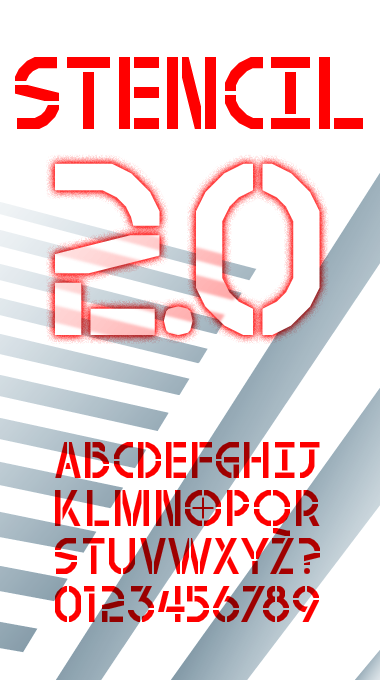
• Another stencil font...with obvious influences from Glaser Stencil (because I love it so!). But to be fair, Glaser Stencil was not referenced even once in the making of this fontstruction.
Allow me to wax technical about FontStruct 2.0 for a bit. A lot of my fontstructions have been even thickness all around. However, the evenness have been approximated thus far—not so anymore. First there were the 45° bricks; then came the 26.57°/63.43° bricks. With the 2.0 Make Composite feature, 14.04°/75.96° angles became possible. These two additional angles provide a finer tune of thickness of stems. The preview does not do justice to the font, but I tested the thicknesses of stems in Illustrator—horizontals/verticals/diagonals. Each stem now is as close in thickness to other as possible. This really is an even stroke font[struction]. Other 2.0 features are also used (but may not be obvious at a glance). See that 'o'? That's just one quarter curve created and then rotated three additional times. Very handy. The horizontal and vertical flips were used extensively throughout the creation process. Quarter-ing of angled bricks became necessary when it became evident that the only even thickness of a stroke is possible at x.5 thickness when combined with a curve. This meant that each vertical/horizontal stem is 5.5 bricks thick, which in turn made it necessary to use angled bricks at a quarter scale, which, of course, was made possible with the Make Composite feature. The only place I couldn't get the brick I wanted was in 4 (zoom in to see the slight misshape). It was a joy to work on this fontstruction to get what I really wanted almost every time. Great update, Rob. Cheers!
As long as I am on the soap box: What's up with diaeresis? I understand the reason for their existence, but are they the best possible way to handle various additional sounds? Also, are they even necessary? For example, café in French means a particular thing. But does cafe (without the e with the grave on it) mean something else? If not, wouldn't the French automatically know how to properly pronounce café (with or without acute on the e) the correct way whichever 'e' is used? It helps in the pronunciation for the uninitiated but are languages really designed for the novice? There are 26 letters in the English alphabet but they cover the gamut of up to 44 different sounds (according to some). Improbable as it may seem, it does not stop people to choose the correct pronunciation of letters. Hop has one sound for the 'o' and adding an 'e' at the end does not add the 'e' sound at the end of 'hop' but changes the sound of the middle 'o'. Convention. Sure. What I am trying to get at is that written script functions much better with distinct shapes without the flow-interrupting addition of the diaeresis. So unless there are two words spelled the same with the only difference being the kind of diacritic on the letters, the diacritic are redundant, no? If there is a real need for certain letter+diacritic combo, wouldn't a new shape be better? There are no shortage of additional shapes in the scripts of other languages. Can't do without an 'é'? Replace it with, say, 'ө' from the Greek script...or whatever. It bears repetition: What's up with diaeresis?
You raise good points about diacritics. I'm a member of the Saundspel Yahoo! Group, and some of us are constantly debating the best way to write English: diacritics, letter groups or new letters? I favor adding new letters to our alphabet, but not all email systems fully support Unicode.
The German language has not only vowels with umlauts, but also the sharp s (ß). Icelandic has edh and thorn, both of which used to be English letters. Should FontStruct add IPA Extensions and Shavian to its supported ranges?
From your anti-diacritic rant I take it that you are a native speaker of English (or of another language, whose writing system doesn't contain diacritics). As a defence for the diacritic I think that there are in most cases minimal pairs, i.e. words that are spelt the same except for one letter (or sound).
In Danish (my native language) we have three additional letters - æ, ø and å - that we concider extra letters, and not simply letters with diacritics. And I agree with you that different shapes of letters are more interesting than diacritics (in Swedish they use ä and ö corresponding to the same sounds as our æ and ø).
We do have the occational diacritic in danish, but they are optional or for showing stressed words. For example the danish word for 'idea' may be spelt either 'idé' or 'ide', and if we want to stress that there is only 'one cow' instead of simply 'a cow' we can do so by writing 'én ko' instead of 'en ko' (where 'en' is the common indefinite article and 'ko' is 'cow').
What I am trying to say is that there is probably a reason for all the different diacritics, and the reason they are not entirely different shapes of letters is probably that it is easier to put diacritics on them. I also think the diacritics are what makes the latin (and for that matter cyrillic) such a versatile script for writing so many languages, no matter how many different sounds they have.
By the way: the font is great. 10/10
A great new stencil face. I very much like the glyphs with steep diagonals (e.g. A,M,N,V,W). For the curvy parts I'm still struggling to accept the limitations of FS, though they're vanishing fast. What I also like, fs Stencil 2.0 has it's own look and style, unlike the stencil fonts I've seen before. 10/10
On the use of diacritical marks. Part of the phenomenal success of the Latin alphabet stems from its simplicity. I can be adapted to almost any language to cover a wide range of phonemes, thanks to the help of diacritical marks, and other things. It takes one year in elementary school to learn how to read and write in Europe, compared to the lifetime achievement in some Asian cultures. To introduce new letters sounds like a very bad idea to me.
My native tongue, Hungarian, is heavily accented, and we don't have any problem with it. It is very logical system, and looks very natural in print, for us anyway. With and without the diacritical marks a particular word could have quite different meanings. At the dawn of the digital age, the time when the extended Latin set was not fully supported in word processors and URLs, we had quite a few funny cases.
From purely aesthetic point of view, accented characters look distinctly graceful, and decorated. The Tengwar script, invented by J.R.R. Tolkien, used them to great extent to achieve style and lasting elegance.
Comment by Frodo7 1st june 2010
Nice stencil thal .. ah, the joys of 2.0 :)
Comment by p2pnut 1st june 2010
Congratulations! FontStruct Staff have deemed your FontStruction worthy of special mention. “fs Stencil 2.0” is now a Top Pick.
most common in french are à â é è ê ë î ï ô ù û ç œ
not common: æ
hi thalamic,
great job. a real thalamic-stencil with playful glyphs. i can feel the joy and the fun of you fontstructing.
I had to scroll for 4 hours until i could get to the box where you can type your comment (10/10 for the font i am astounded)